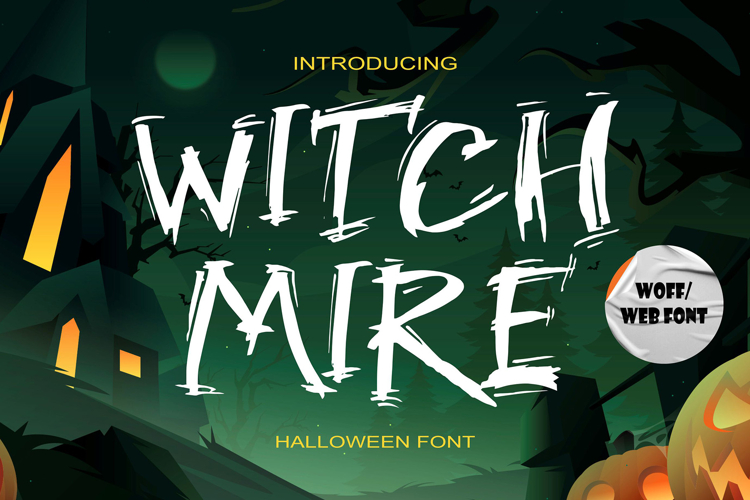
Witch Mire - Brush Halloween Font
Step into the eerie season with Witch Mire – Brush Halloween Font, a bold and spooky typeface crafted to bring your Halloween designs to life. Inspired by rough brush strokes and dripping horror details, this font captures the unsettling energy of haunted nights, making it perfect for scary posters, creepy flyers, Halloween invitations, and horror-themed branding.
With its all-caps design, Witch Mire ensures every word has a commanding, dramatic presence. Each letter looks as if it were painted with a haunted brush dipped in shadows, giving your projects a chilling, handcrafted vibe. Whether you’re promoting a haunted house, designing a spooky banner, or creating horror movie covers, this font sets the tone instantly.
Key Features
- All Caps Design – bold uppercase style for maximum impact.
- Support Multilingual – reach audiences around the globe.
- Brush Horror Style – rough brush strokes combined with scary Halloween vibes.
- Versatile Usage – perfect for Halloween posters, flyers, banners, invitations, and titles.
- Strong Legibility – keeps the spooky look while remaining clear and readable.
Why Designers Love It Designers choose Witch Mire because it delivers both artistry and functionality. The handcrafted brush strokes give a raw, authentic look that feels alive, perfect for adding intensity to Halloween-themed projects. Its spooky aesthetic stands out in party flyers, horror branding, and social media posts.
Another reason designers love it is its versatility. While it’s designed for Halloween, the strong brush style also works well in dark fantasy themes, horror gaming graphics, and thriller book covers. With multilingual support and multiple formats, Witch Mire fits seamlessly into any professional design workflow.